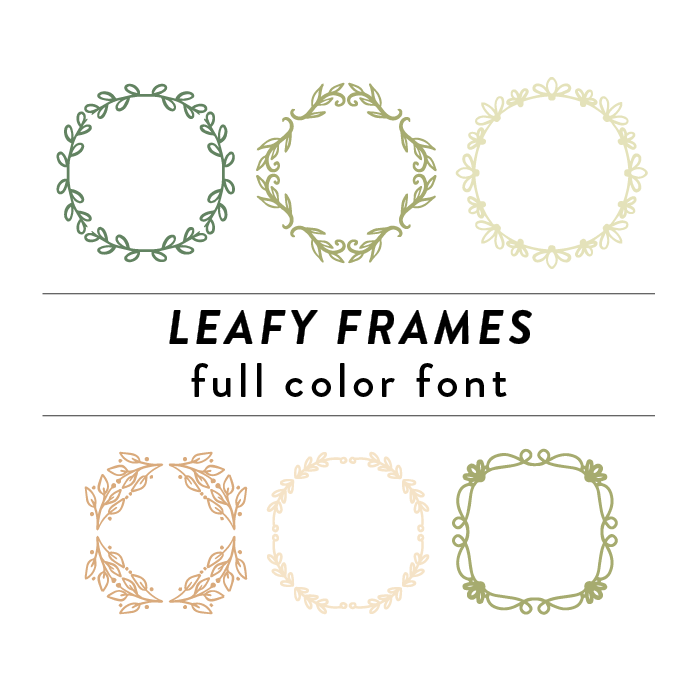
Leafy Frames Full Color Font is a decorative font design featuring intricate tree branches and leaves forming unique frames. The design is detailed and vibrant, perfect for adding a touch of nature-inspired charm to any monogram project. This font is a OTF craft font that will appear in color only when used with the silhouette software.